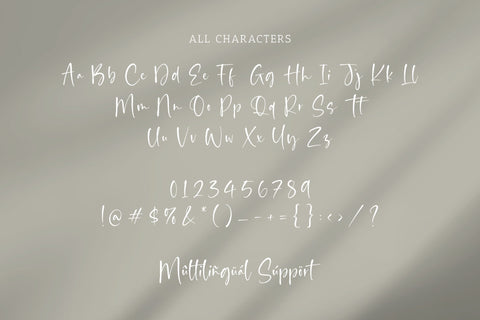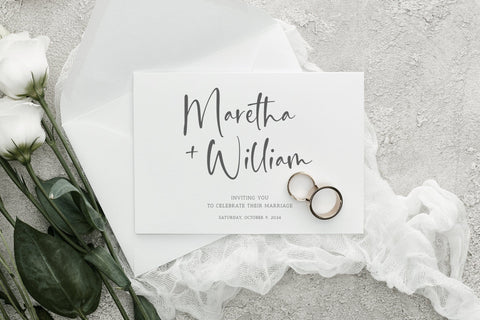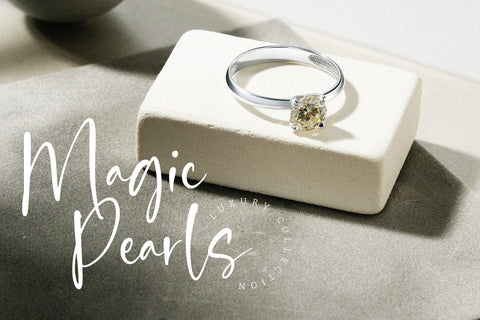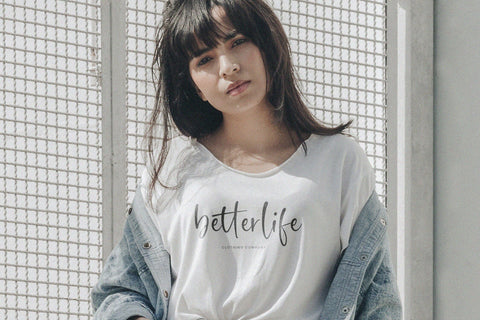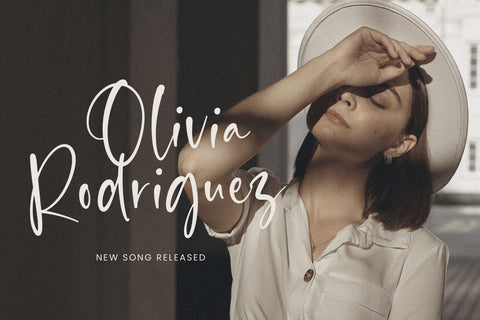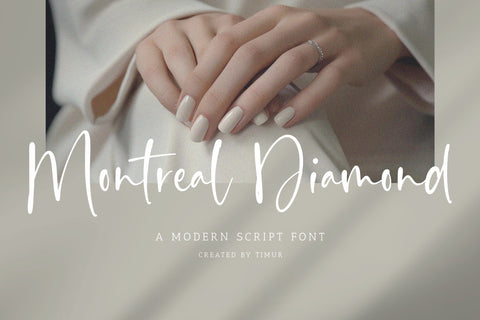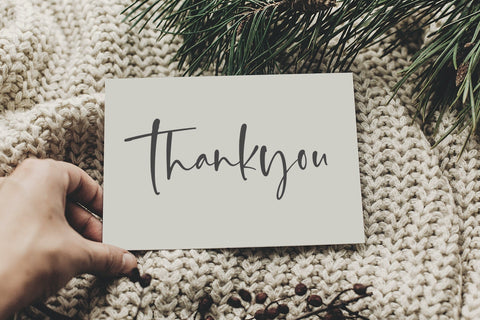
Montreal Diamond - Modern Script font
Proudly Present, Montreal Diamond- modern Script
Montreal Diamond - modern Script , which was created with great care and specially created for you
Montreal Diamond - modern Script is perfect for product packaging, branding project, megazine, social media, wedding, or just used to express words above the background.
– multilingual support.